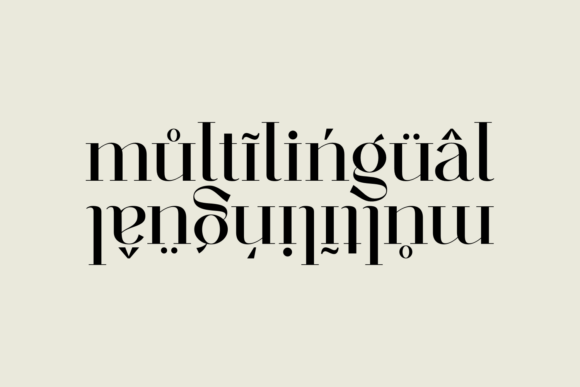
Fast forward to today, and I’m excited to share with you a font that has become a staple in my design toolkit: Geonia. This modern serif font has won me over with its clean and stylish look, making it perfect for both print and digital projects.
An Honest Review of Geonia Font
- ✨ Elegant lines and balanced shapes that make it easy to read
- ✅ Sophisticated and professional look that’s perfect for high-end designs
- 💻 Works seamlessly across both print and digital platforms
- 🎨 Highly versatile, making it suitable for a wide range of design projects
While Geonia is an excellent font, there are a few minor quirks to be aware of:
- ⚠️ Some users have reported issues with kerning, particularly in larger font sizes
- 🤔 Limited availability of certain OpenType features, such as ligatures
The Designer Behind Geonia
Geonia was designed by a team of typographers who aimed to create a font that was both elegant and versatile. The design process involved countless hours of refinement and testing to ensure that the font was perfect for a wide range of design projects. While the exact details of the design process are not publicly available, it’s clear that the team behind Geonia was dedicated to creating a font that would meet the needs of designers and crafters alike.
Q: What is Geonia font?
A: Geonia is a modern serif font known for its clean and stylish look, making it perfect for both print and digital projects.
Q: Is Geonia suitable for body text?
A: Yes, Geonia is highly legible and suitable for body text, making it a great choice for long-form content.
Q: Does Geonia support OpenType features?
A: Yes, Geonia supports certain OpenType features, such as stylistic alternates and glyphs, although the exact features available may vary depending on the platform and software used.